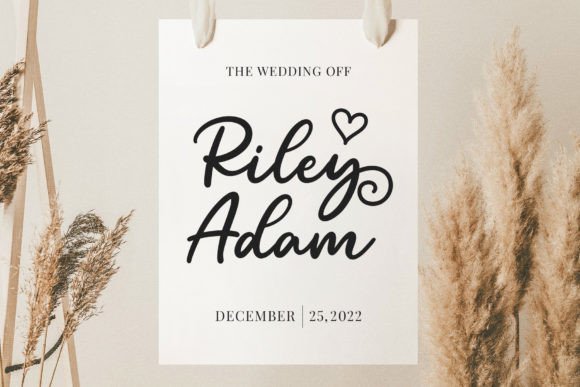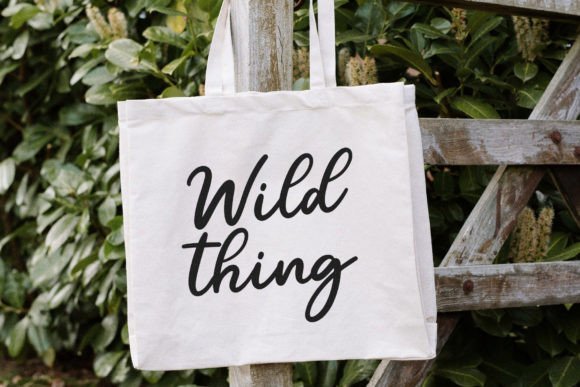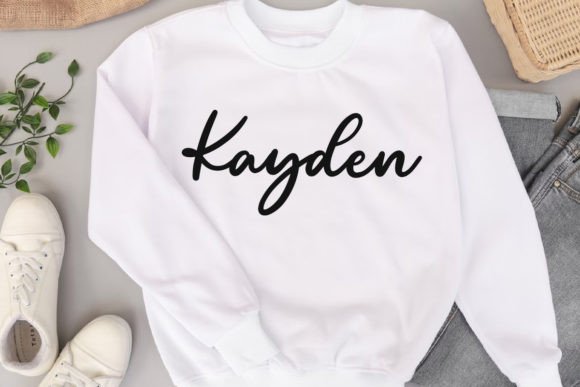
Introduction to Ryder Carley Font
Ryder Carley is a stylish, modern, and flowing handwritten script font.
It has beautiful and well-balanced characters and as a result, it matches a wide pool of designs Add it to your most creative ideas and notice how it makes them come alive.